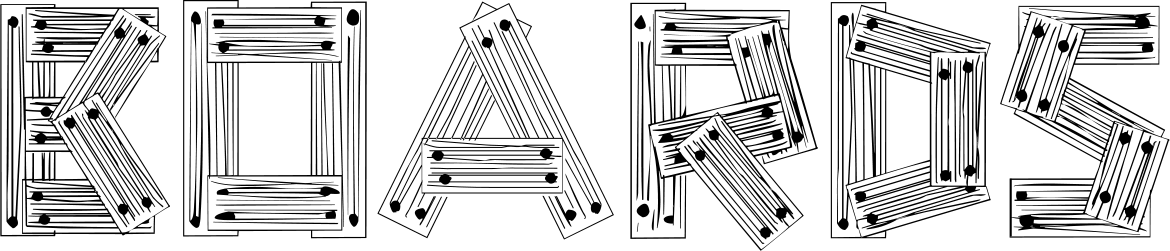
Boards Font
Use this wood font for decorative text-based layouts and inspire your clients at first sight. Boards font can be utilized in different situations for instance; logos, flyers, books, and so forth. The letters are designed thick and wide in this case. Don’t hesitate and click on the download button to experience a fabulous outcome.